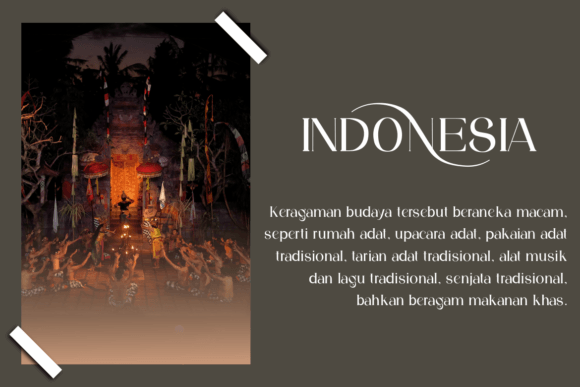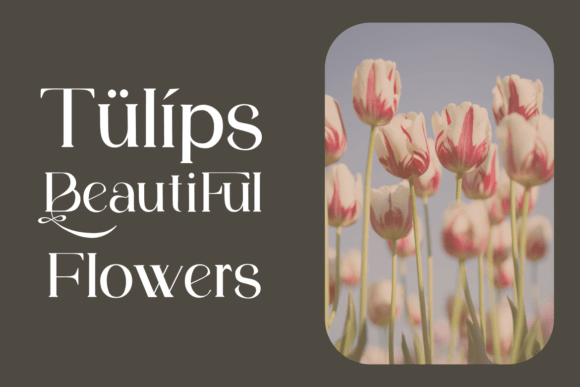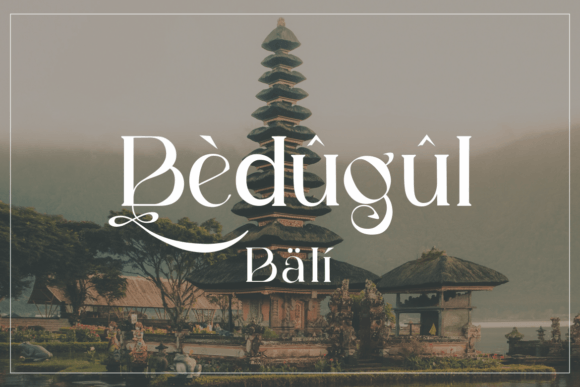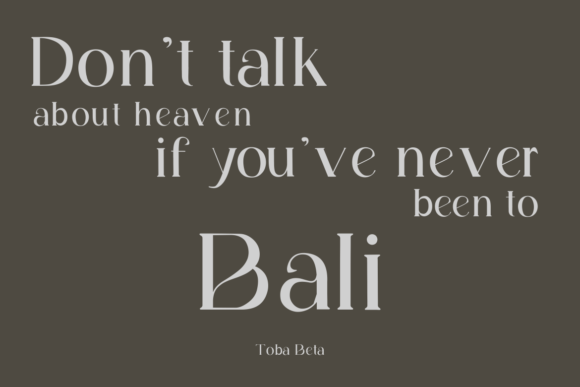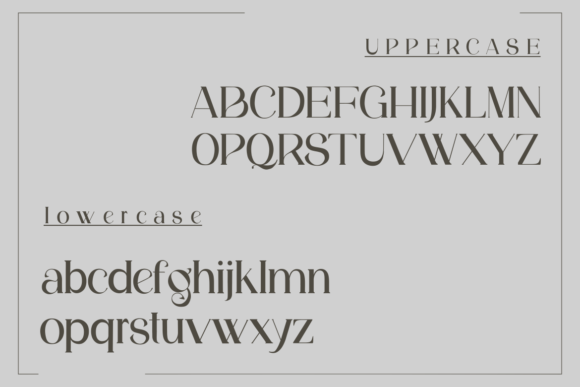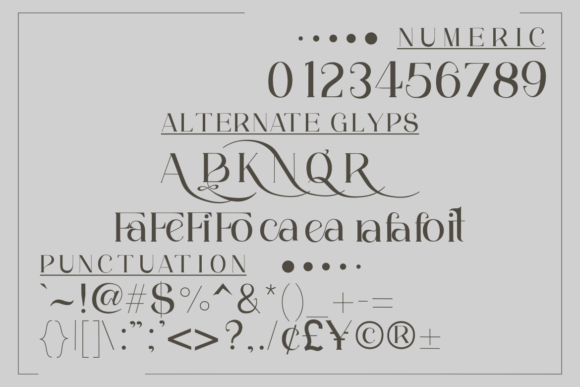
Introduction to Ragam Luxury Font Font
Fonts play a crucial role in design, and the Ragam Luxury Font font is a typeface that brings both character and versatility to any project. Whether you’re working on a branding project, a website, or a print design, the Ragam Luxury Font font offers a unique style that can elevate your work.
Ragam Luxury is a stylish serif font that exudes luxury and sophistication, with each letter crafted to perfection.
Its clean lines and elegant curves give it a timeless appeal thatβs perfect for everything from high-end fashion magazines to upscale marketing materials With its refined style and effortless grace, this font is sure to add a touch of class to any project.
Key Features of Ragam Luxury Font Font
Why Choose Ragam Luxury Font Font?
The Ragam Luxury Font font is more than just a typeface β it’s a design tool that helps you communicate your message with style and clarity. Its unique character set and versatile design make it suitable for a wide range of applications, from elegant invitations to bold headlines.
With its carefully crafted letterforms and balanced proportions, the Ragam Luxury Font font ensures readability and visual appeal across all mediums.
What makes Ragam Luxury Font font special?
The Ragam Luxury Font font stands out with its unique design, exceptional readability, and versatility across various design applications.